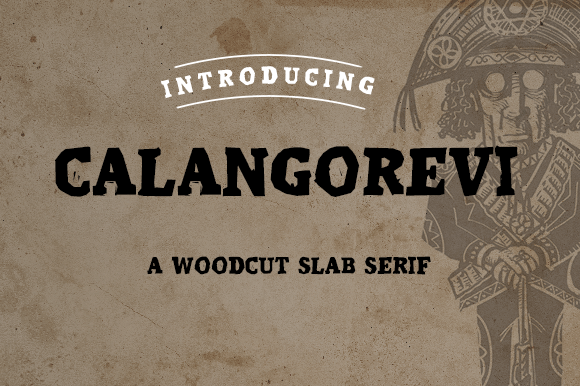
Discover the Unique Charm of Calango Revi Font
The Calango Revi font is a distinctive typeface that draws inspiration from the traditional culture of Northeast Brazil. This rustic font is characterized by its imperfections and rough texture, reminiscent of the handmade assembly of small booklets of country poetry. In this article, we will explore the origins of the Calango Revi font, its unique features, and the cultural significance of woodcuts in Northeast Brazilian tradition.
The Origins of Calango Revi Font
In the traditional culture of Northeast Brazil, woodcuts have been used for centuries to illustrate small booklets of country poetry. These booklets, often assembled by hand, feature intricate woodcut illustrations and rustic typography. The Calango Revi font is a digital representation of this traditional typography, with its characteristic imperfections and rough texture.
The name “Calango” refers to the wall gecko (Hemidactylus mabouia), a common creature found in the Northeast region. “Revi,” on the other hand, is the Brazilian pronunciation of the word “Heavy.” Together, the name Calango Revi font reflects the font’s rugged and rustic nature.
The Art of Woodcuts in Northeast Brazilian Tradition
Woodcuts have been an integral part of Northeast Brazilian culture for centuries. These traditional illustrations were used to decorate small booklets of country poetry, which were often assembled by hand. The woodcut technique involved carving intricate designs onto wooden blocks, which were then used to print illustrations onto paper.
The use of woodcuts in Northeast Brazilian tradition is a testament to the region’s rich cultural heritage. These illustrations not only added a touch of rustic charm to the booklets but also helped to convey the emotions and themes of the poetry. The Calango Revi font captures the essence of this traditional art form, with its rough texture and imperfections.
The Characteristics of Calango Revi Font
The Calango Revi font is a unique typeface that features a range of characteristics, including:
- Rustic texture: The font features a rough, textured appearance that is reminiscent of traditional woodcut illustrations.
- Imperfections: The font includes small printing flaws, such as uneven letter spacing and rough edges, which add to its rustic charm.
- Handmade feel: The font has a handmade feel, with each letter and character carefully crafted to reflect the imperfections of traditional typography.
These characteristics make the Calango Revi font an ideal choice for designers looking to add a touch of rustic charm to their projects.
The Significance of Calango Revi Font in Modern Design
The Calango Revi font has a range of applications in modern design, from book design to branding and advertising. Its unique characteristics make it an attractive choice for designers looking to add a touch of rustic charm to their projects.
In addition to its aesthetic appeal, the Calango Revi font also has cultural significance. It is a nod to the traditional culture of Northeast Brazil and the art of woodcuts, which has been an integral part of the region’s heritage for centuries.
Using Calango Revi Font in Your Design Projects
If you’re interested in using the Calango Revi font in your design projects, here are a few tips to keep in mind:
- Pair it with simple backgrounds: The Calango Revi font works best with simple backgrounds that allow the rustic texture to shine through.
- Use it for headings and titles: The font’s rustic texture and imperfections make it ideal for headings and titles, where it can add a touch of drama and flair.
- Experiment with colors: The Calango Revi font works well with a range of colors, from earthy tones to bold brights.
The Calango Revi font is a unique and distinctive typeface that draws inspiration from the traditional culture of Northeast Brazil. Its rustic texture, imperfections, and handmade feel make it an attractive choice for designers looking to add a touch of rustic charm to their projects. Whether you’re designing a book, a brochure, or a website, the Calango Revi font is sure to add a touch of cultural significance and aesthetic appeal.